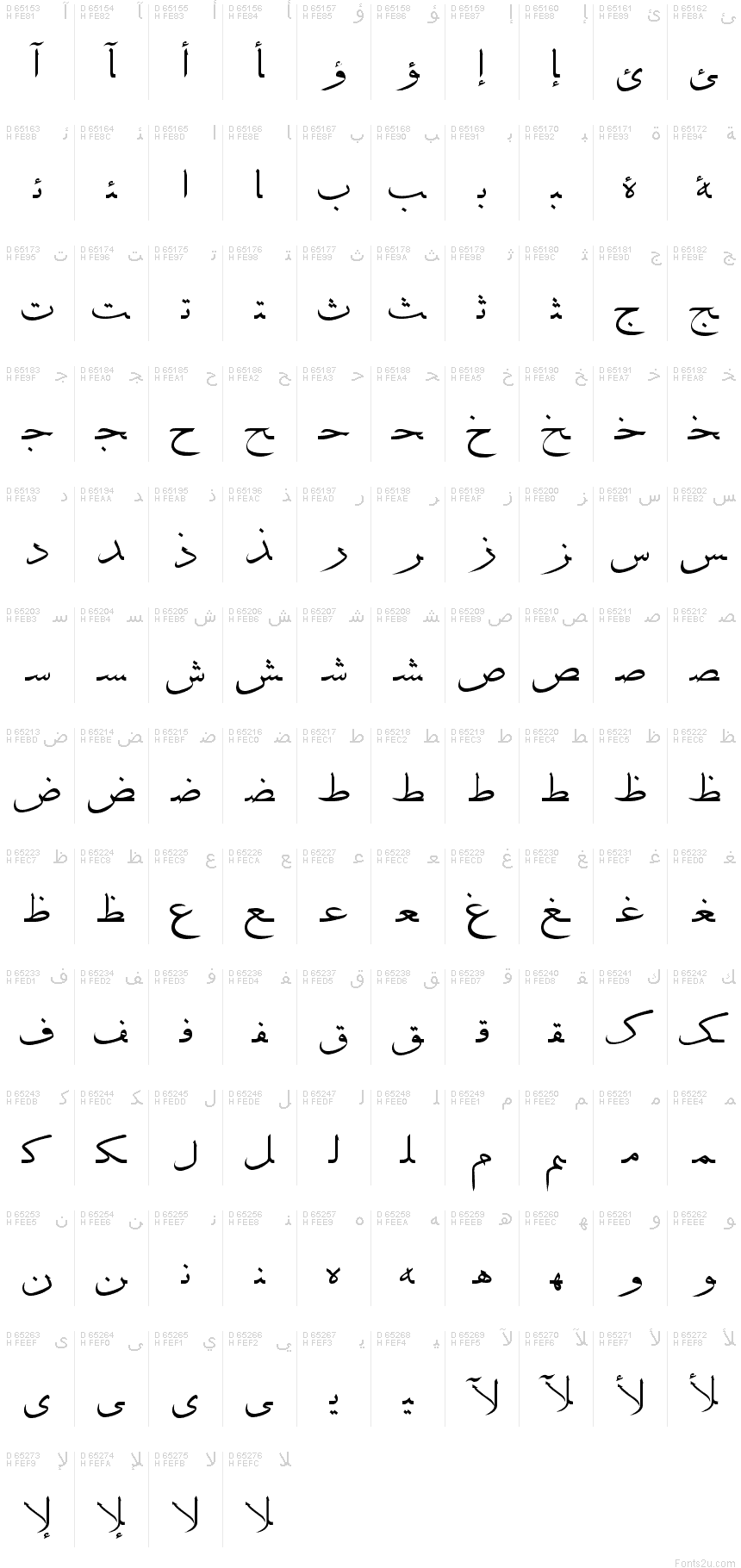
B Hamid by Borna Rayaneh is a free Arabic display font shaped by tall tapering strokes and hooked upper turns that give the lettering a brisk calligraphic slant. The design feels quick and upright at once, with enough curve to keep it fluid without losing its firm graphic edge.
B Hamid makes sense on cultural posters, book covers, packaging, restaurant branding, and editorial graphics where the free font can give short text a more human rhythm. It is especially convincing in headlines, title cards, and cover lines, because those rising hooks and narrowed ends keep a few words lively without looking overly ornamental.